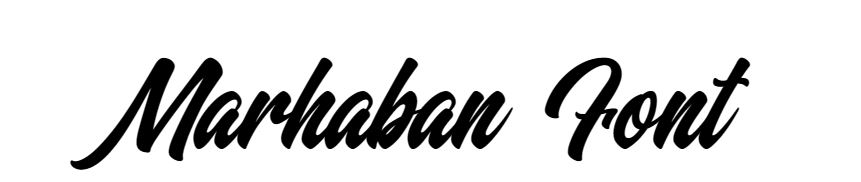
Marhaban
Marhaban is a handwritten font created by wnprh (2017). It has a casual, written-with-a-pen look that makes designs feel personal. You can download it for free and test it with your own words in the preview above.
Marhaban Font Details
- Designer: wnprh
- Glyphs: 126
- OpenType features: Ligatures (including optional ones) and 7 stylistic sets
- Extra characters: 39 copy-and-paste alternates (Private Use Area)
What You Can Type With Marhaban
You get every letter from A to Z in both cases and all the numbers from 0 to 9, which means Marhaban can handle full sentences, dates and prices. Everyday marks like &, !, ? and @ are there too. There are no accented letters like é or ñ, so it's best kept to English text.
Where Marhaban Works Best
Designers usually reach for fonts like Marhaban when they're making greeting cards, journal pages and friendly social posts. Set it a bit larger than you would a normal text font. Handwriting styles lose their charm once they get too small to read comfortably.
Who designed Marhaban font?
Marhaban was designed by wnprh. The copyright line inside the font is dated 2017.
Does Marhaban support accented letters?
No. Marhaban has no accented letters such as é, ñ or ü, so it's best for English text.